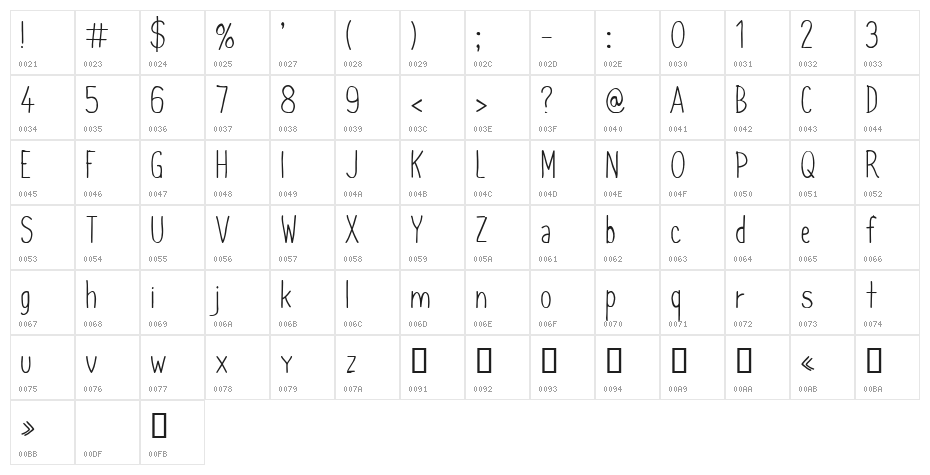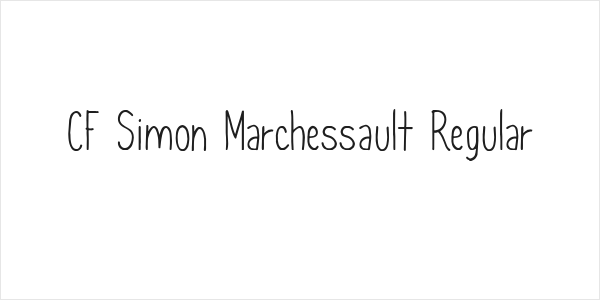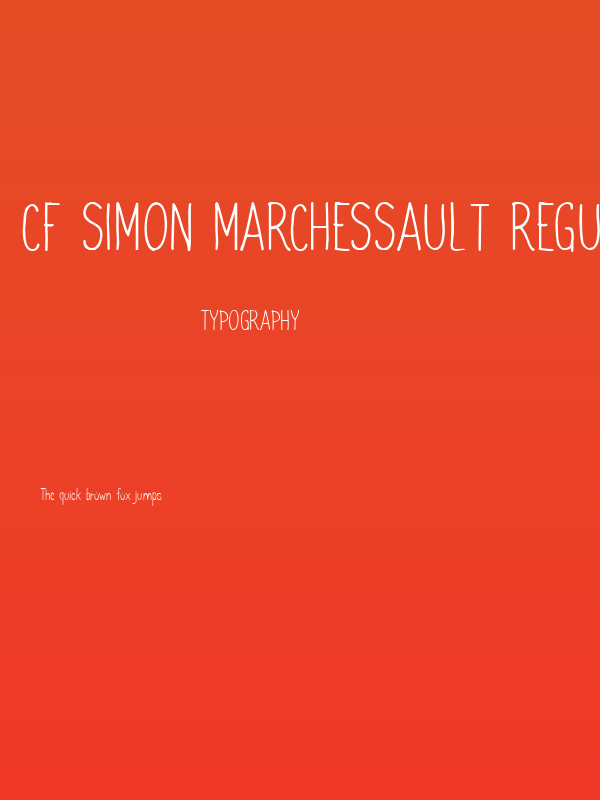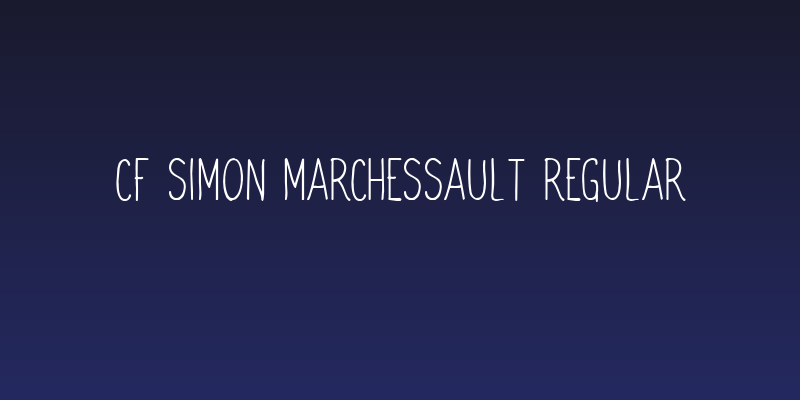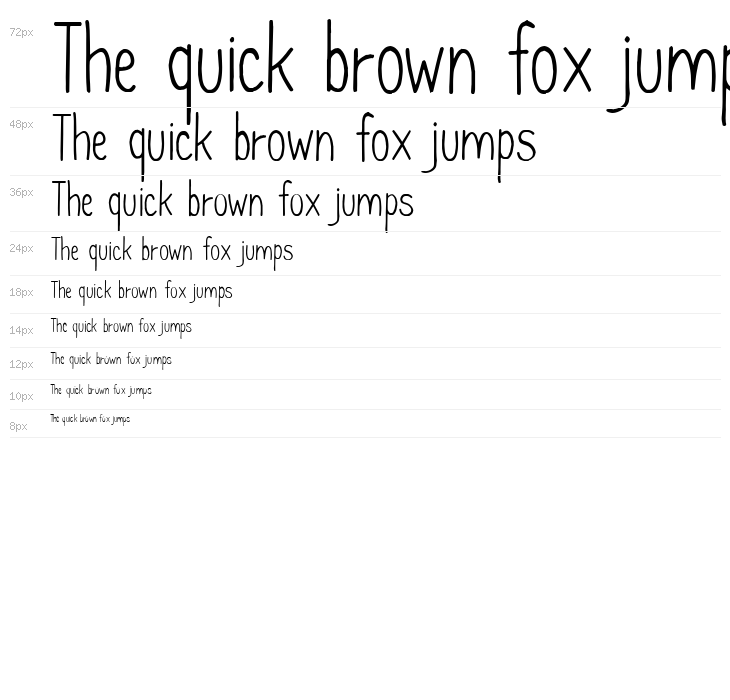
CF Simon Marchessault Regular Font
CF Simon Marchessault Regular Description
This font features a playful and casual handwritten style, characterized by its tall, narrow letterforms and slightly irregular strokes. The uppercase letters maintain a consistent height, while the lowercase letters exhibit a charming, informal touch with subtle variations in size and shape. The numerals are clear and legible, matching the overall aesthetic of the alphabet. Special characters are included, maintaining the same whimsical style. The font's design is approachable and friendly, making it suitable for projects that require a personal or informal touch.
| Use Case | Headlines, Informal text, Branding |
| Proposed Projects | Ideal for greeting cards, children's books, casual invitations, and playful branding. |